The Psychology of Fonts and Logos: Lessons for Research Presentation Design
Every design choice communicates something before a single word is read. The fonts you select, the logos you create, and the visual hierarchy you establish all work together to shape how your audience perceives your research. Understanding the psychology of fonts and logos isn't just about aesthetics, it's about leveraging visual communication to enhance credibility, comprehension, and engagement in academic settings.
The Science Behind Font Psychology in Design
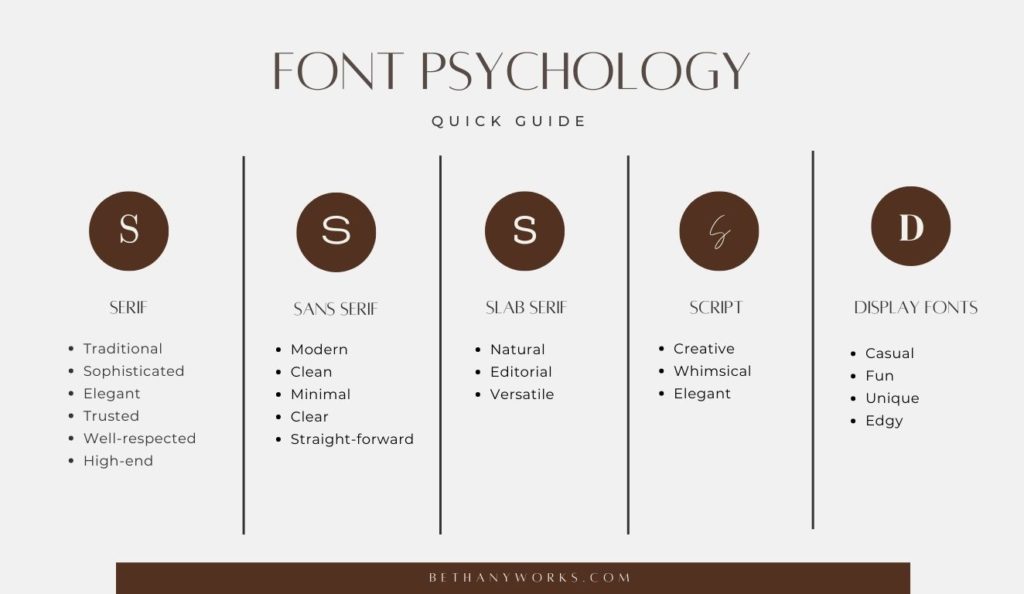
Typography does more than make text readable. Research in cognitive psychology reveals that fonts trigger emotional responses and influence how audiences process information. Serif fonts like Times New Roman convey tradition and authority, making them popular in academic journals and formal research papers. Sans-serif fonts like Helvetica or Arial project modernity and clarity, ideal for digital presentations where readability at a distance matters most.
The weight, spacing, and style of typography create subliminal impressions. Heavy, bold fonts suggest importance and confidence, while lighter weights feel approachable and less confrontational. When designing research presentations, these subtle cues guide your audience's attention and shape their interpretation of your findings before they engage with the content itself.
How Fonts Affect Perception in Academic Contexts
The relationship between typography and credibility is particularly crucial in academic environments. Studies show that audiences judge the professionalism and trustworthiness of research based partly on typography for research presentations. A poorly chosen font can undermine years of rigorous work, while thoughtful typography enhances perceived competence.
Legibility directly impacts comprehension. Fonts with high x-heights and generous spacing reduce cognitive load, allowing audiences to focus on complex ideas rather than struggling to decode characters. For data-heavy slides, selecting fonts with distinct letterforms where characters like "I," "l," and "1" are easily distinguished prevents misinterpretation of critical information.
Consider the context of your presentation. Conference presentations viewed from the back of a large auditorium require different typographic solutions than intimate seminar settings or published papers. The best fonts for research presentations balance distinctiveness with neutrality, ensuring your message remains the focus rather than the medium.
Logo Design Psychology and Brand Identity
Logos function as visual shorthand for institutional identity and research credibility. Universities, research institutions, and academic journals invest heavily in logo design psychology because these symbols carry immense associative power. A well-designed logo instantly communicates legitimacy and positions your work within a broader scholarly tradition.
The principles that make logos effective simplicity, memorability, appropriateness, and timelessness apply equally to research presentation design. Your title slides, section dividers, and data visualizations should maintain visual consistency that reinforces your personal or institutional brand. This consistency builds recognition across multiple presentations and publications, strengthening your professional identity.
Shape psychology influences logo interpretation. Circular logos suggest community and completeness, angular shapes convey stability and professionalism, while organic curves feel innovative and approachable. When incorporating institutional logos into presentations, ensure they complement rather than compete with your content, maintaining appropriate hierarchy and scale.
Color and Typography Psychology: A Powerful Combination
Color choices amplify typographic impact. The psychology of color in academic design operates on both cultural and biological levels. Blue tones signal trustworthiness and intelligence, making them ubiquitous in educational and scientific contexts. Red captures attention but should be used sparingly, as it can also trigger stress responses that interfere with information processing.
Contrast ratios between text and background affect readability and accessibility. High contrast combinations such as dark text on light backgrounds reduce eye strain during extended viewing. For presentations, avoid pure white backgrounds, which can cause glare in darkened rooms. Off-white or light gray backgrounds with dark gray text provide comfortable contrast without harsh intensity.
Color and typography psychology intersect in creating visual hierarchy. Using color to distinguish headings from body text, or to highlight key findings, guides attention strategically. However, restraint is essential. Presentations that employ too many colors or type styles appear chaotic and diminish the impact of truly important elements.
Visual Communication in Academic Design: Practical Principles
Effective visual communication in academic design requires understanding your audience's cognitive processing patterns. Research presentations compete for limited attention resources, making efficiency paramount. Every visual element should serve a clear purpose: clarifying relationships, emphasizing findings, or organizing information logically.
The principle of consistency cannot be overstated. Establish a typographic system with defined roles for headings, subheadings, body text, captions, and annotations. Maintain this system throughout your presentation to reduce cognitive friction. When audiences don't need to relearn your visual language on each slide, they can devote more mental resources to understanding your research.
White space the empty areas surrounding text and graphics functions as an active design element. Generous margins and spacing between elements create breathing room that prevents visual overwhelm. Dense slides packed with information may seem efficient, but they actually impair comprehension and retention compared to well-spaced alternatives.
Selecting the Best Fonts for Research Presentations
Choosing appropriate typography requires balancing multiple factors: readability, tone, technical constraints, and aesthetic cohesion. The best fonts for research presentations typically fall into a few reliable categories.
For headings and titles, consider fonts like Montserrat, Lato, or Proxima Nova. These sans-serif options offer strong visual presence without excessive personality, allowing your research to take center stage. They remain legible at large sizes and reproduce well across different display technologies.
For body text and detailed information, opt for highly legible faces like Source Sans Pro, Open Sans, or Calibri. These fonts maintain clarity at smaller sizes and offer excellent on-screen rendering. Their neutral character ensures they won't distract from complex data or nuanced arguments.
Avoid decorative or script fonts in academic presentations unless explicitly required by branding guidelines. These specialty typefaces sacrifice readability for style and rarely serve research communication goals. Similarly, resist combining too many different fonts a primary font for headings and a complementary font for body text provide sufficient variety without creating visual chaos.
Applying Font and Logo Psychology to Your Research
Implementing these principles transforms research presentations from mere information delivery into persuasive visual experiences. Begin by auditing your current materials. Do your font choices align with your message's tone? Does your slide hierarchy guide viewers logically through your argument? Are institutional logos scaled appropriately and positioned consistently?
When developing new presentations, start with typography and layout before adding content. This design-first approach ensures visual considerations shape your communication strategy rather than being retrofitted afterward. Create templates that encode your typographic decisions, allowing you to focus on content while maintaining design consistency.
For researchers producing multiple publications and presentations, developing a personal visual identity pays dividends. Consistent typography, color schemes, and layout conventions across your work build recognition and professionalism. This doesn't require graphic design expertise; thoughtful application of basic principles creates distinctive, effective materials.
Many researchers find themselves balancing presentation design with the demanding work of conducting studies and writing papers. For those seeking support with written components while maintaining focus on visual communication, services specializing in custom research paper writing can provide valuable assistance, allowing you to dedicate energy to perfecting your presentation design.
Common Typography Mistakes in Research Presentations
Several recurring errors undermine otherwise strong research presentations. Overusing bold and italic emphasis dilutes their impact when everything is emphasized, nothing stands out. Reserve these treatments for genuinely critical information, using them sparingly to maintain effectiveness.
Insufficient text size represents perhaps the most common problem. Text smaller than 24 points often becomes illegible from audience seating positions, forcing viewers to squint rather than engage with ideas. When in doubt, increase size presentations should communicate across distance, not require proximity.
Poor alignment creates visual disorder. Left-aligned text provides a consistent starting point for reader eye movements, while centered text works well for titles and short phrases but becomes difficult to read in longer passages. Avoid justified text in presentations, as uneven spacing between words reduces readability.
Inconsistent spacing between elements makes slides appear amateurish. Develop a spacing system perhaps using multiples of 8 or 10 pixels and apply it uniformly to margins, padding, and element separation. This invisible grid structure creates polish that audiences perceive even if they can't articulate why the presentation feels professional.
The Future of Typography in Research Communication
Digital presentation technologies continue evolving, creating new opportunities and challenges for typography in research contexts. Variable fonts allow dynamic adjustment of weight, width, and other characteristics, potentially enabling better optimization for different viewing contexts. High-resolution displays make previously impractical fonts viable, expanding designers' typographic palette.
Accessibility considerations increasingly shape design decisions. Dyslexia-friendly fonts, adjustable text sizes, and enhanced contrast options ensure research reaches broader audiences. These accommodations don't compromise aesthetic quality they expand your research's impact by removing barriers to comprehension.
Motion and animation add another dimension to typographic expression. Subtle transitions can reinforce logical relationships and guide attention sequentially through complex information. However, animation requires restraint; excessive movement distracts rather than clarifies, working against communication goals.
Design as Research Communication Strategy
The psychology of fonts and logos reveals that design choices are never neutral they actively shape how audiences receive, process, and remember research. Typography establishes credibility, guides attention, and influences comprehension in ways that extend far beyond surface aesthetics. By understanding how fonts affect perception and applying principles of visual communication in academic design, researchers transform presentations into powerful tools for scholarly impact.
Effective typography doesn't require extensive design training, but it does demand intentionality. Consider how each visual decision serves your communication goals. Select fonts that enhance rather than obscure your message. Maintain consistency that reduces cognitive load. Create hierarchy that guides understanding. These principles, rooted in the psychology of fonts and logos, elevate research presentations from adequate to exceptional, ensuring your ideas receive the attention and comprehension they deserve.